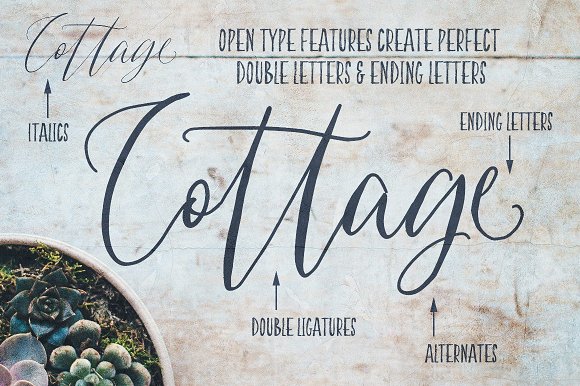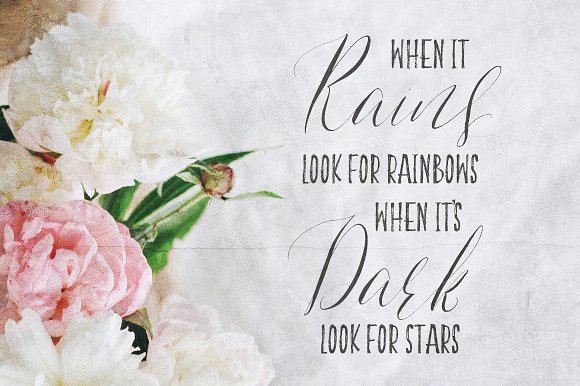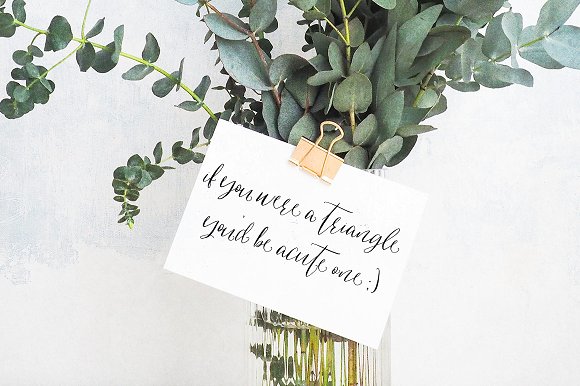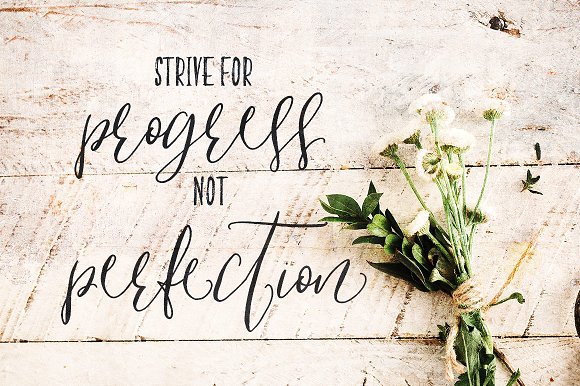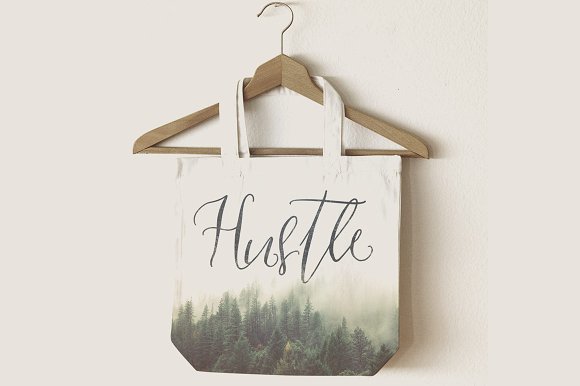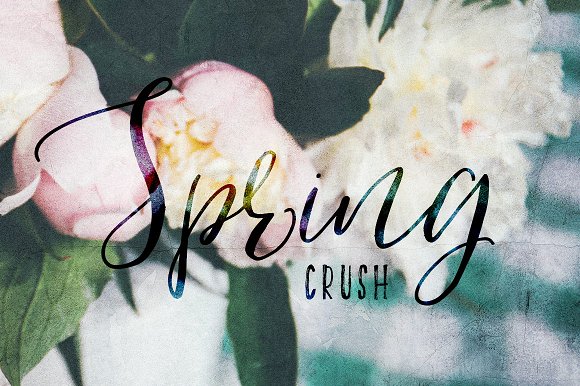
Introduction to Indulgence Font
Indulgence is a beautiful handcrafted font created by Creativeqube.
Key Features of Indulgence Font
Why Choose Indulgence Font?
Indulgence Font offers exceptional quality and versatility, making it a valuable addition to your design toolkit. Whether you’re creating for personal projects or commercial use, Indulgence Font delivers professional results.